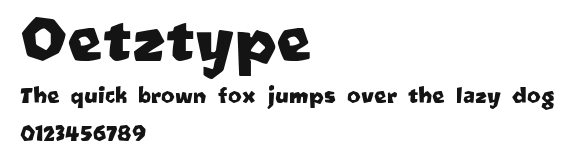
Oetztype.ttf is a modern, elegant sans-serif font designed for ultimate readability and visual harmony. Perfect for branding, headlines, web design, and print materials.